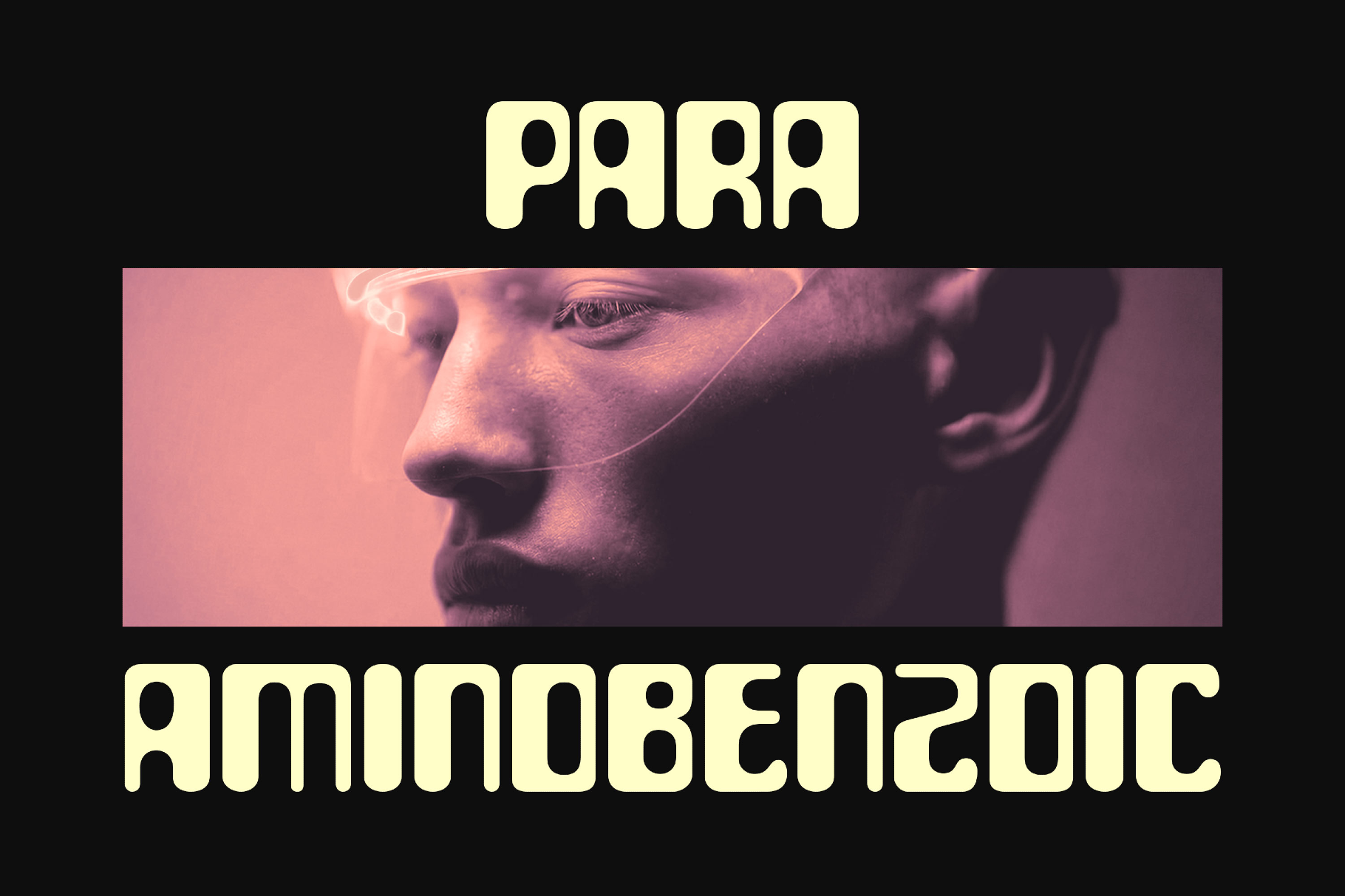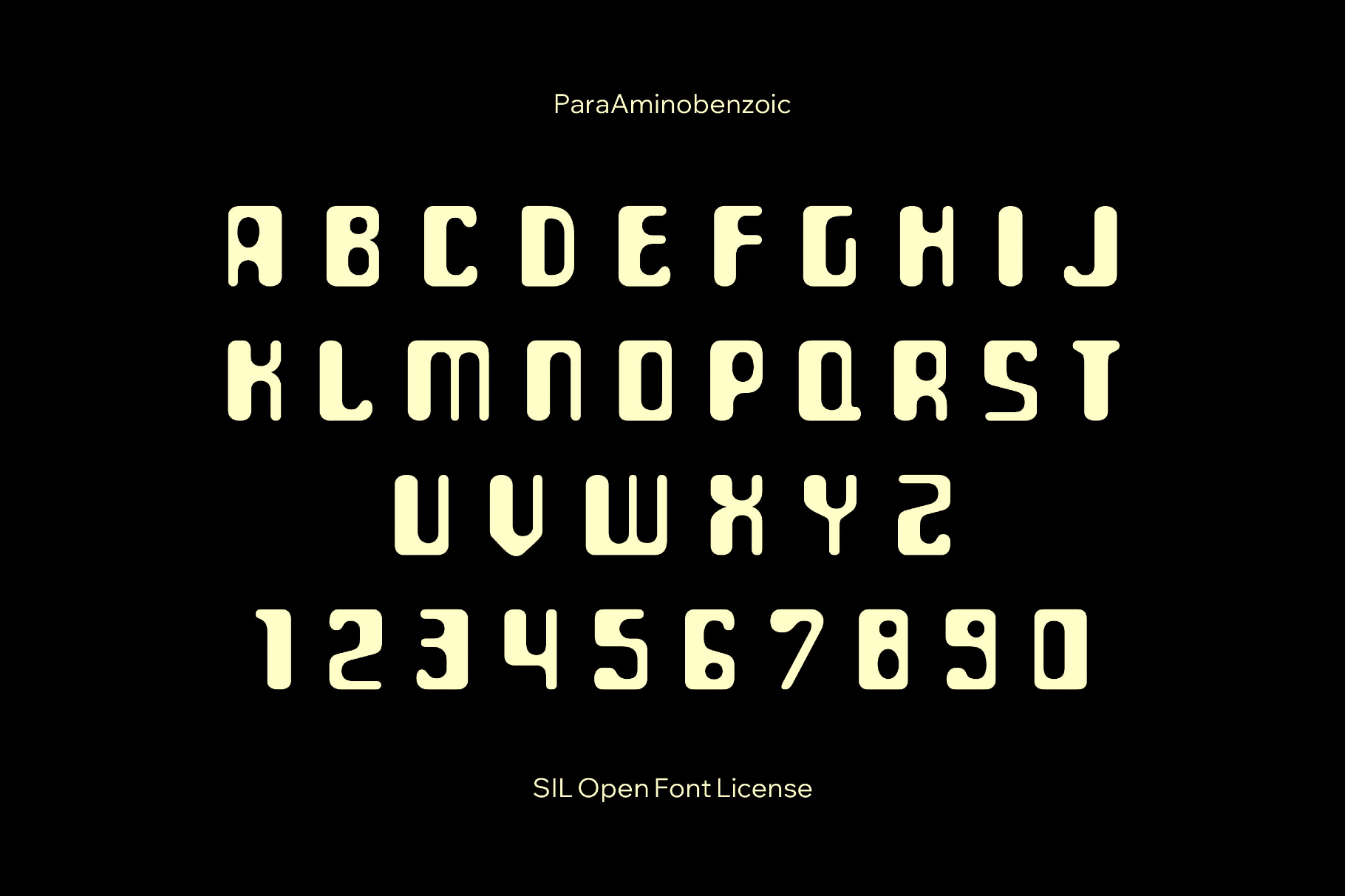
ParaAminobenzoic Sans
ParaAminobenzoic
ParaAminobenzoic is a retro-futuristic sans with chunky, monoline caps and soft terminals that echo magnetic-ink and sci-fi lettering from the 1960s–70s. Its compact rhythm plays best in glitch posters, techno or industrial cover art, magazine headlines, game UI accents, experimental branding, product packaging for gadgets or energy drinks, sticker graphics, and motion titles.
- Only uppercase letters.